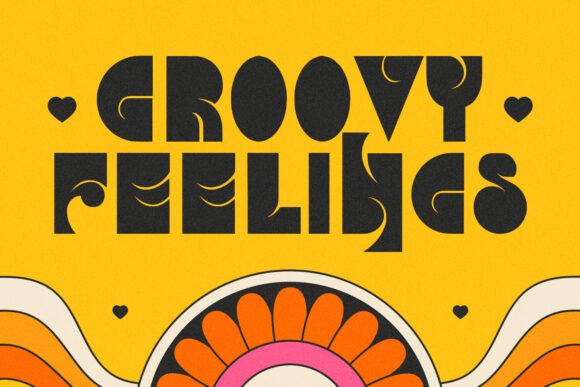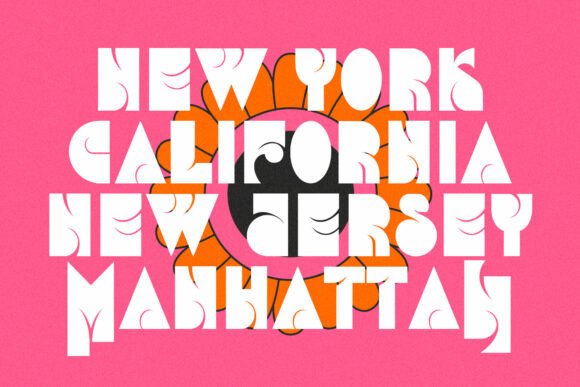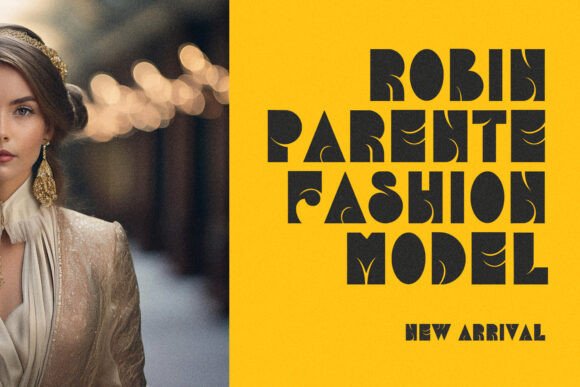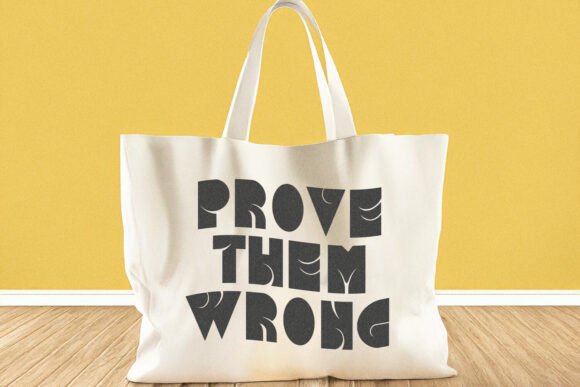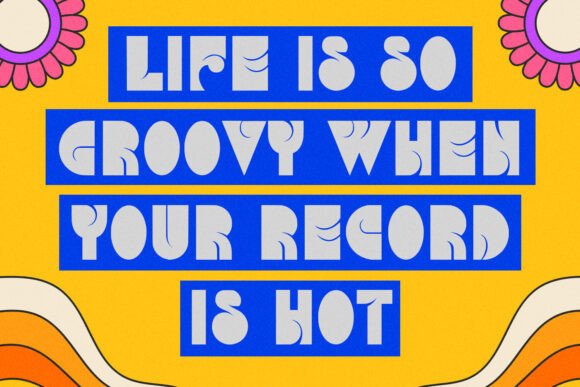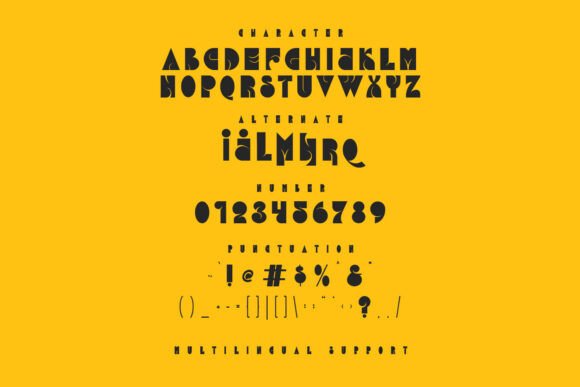
Introducing Gapumir Font: The Ultimate Groovy Display Font for Retro Designs
Are you a designer or crafter looking for a font that can add a playful and vibrant touch to your projects? Look no further than Gapumir Font! This fun and stylish groovy display font is perfect for creating retro designs, posters, logos, and anything that needs a bold and curvy statement. In this article, we’ll dive into the features and benefits of Gapumir Font, and explore how you can use it to take your designs to the next level.
What is Gapumir Font?
Gapumir Font is a unique and eye-catching display font that features bold, curvy letters with a groovy vibe. Its playful and stylish design makes it perfect for creating retro-inspired designs that are sure to grab attention. Whether you’re working on a poster, logo, or social media graphic, Gapumir Font is the perfect choice for adding a fun and vibrant touch.
Key Features of Gapumir Font
- Bold and Curvy Letters: Gapumir Font features bold, curvy letters that are sure to make a statement in any design.
- Groovy Vibe: The font’s groovy vibe is perfect for creating retro-inspired designs that are fun and playful.
- Display Font: Gapumir Font is a display font, making it perfect for headlines, titles, and other large text elements.
- Easy to Read: Despite its bold and curvy design, Gapumir Font is easy to read, making it perfect for use in a variety of design projects.
Benefits of Using Gapumir Font
So why choose Gapumir Font for your design projects? Here are just a few benefits of using this fun and stylish font:
- Adds a Playful Touch: Gapumir Font adds a playful and vibrant touch to any design, making it perfect for projects that need a fun and energetic feel.
- Perfect for Retro Designs: The font’s groovy vibe makes it perfect for creating retro-inspired designs that are sure to grab attention.
- Versatile: Gapumir Font can be used in a variety of design projects, from posters and logos to social media graphics and more.
How to Use Gapumir Font in Your Designs
Using Gapumir Font in your designs is easy! Here are a few tips to get you started:
- Pair with a Simple Font: Pair Gapumir Font with a simple font for body text to create a bold and eye-catching design.
- Use for Headlines and Titles: Use Gapumir Font for headlines and titles to add a playful and vibrant touch to your design.
- Have Fun!: Most importantly, have fun with Gapumir Font! Its playful and groovy vibe makes it perfect for designers and crafters who want to add a little excitement to their projects.